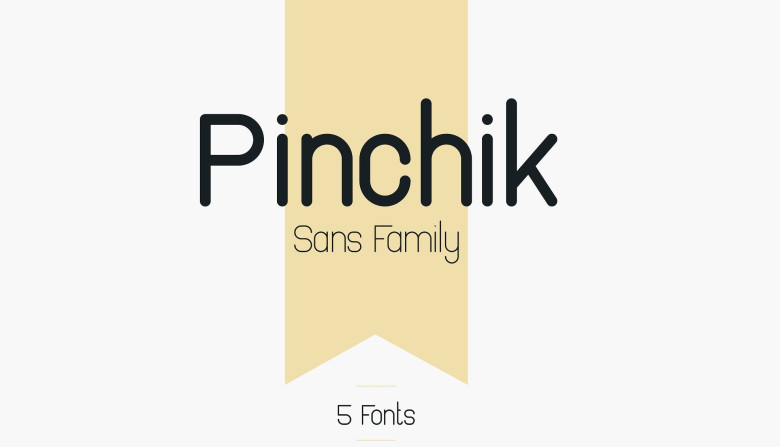
Pinchik Sans Font Family
Start a new day with a new font family. It is a sans family with 5 styles. Introducing Pinchik! It is designed and shared by Vladfedotovv. Pinchik is clean, rounded sans serif typeface with 5 fonts and multilingual support. It’s a very versatile font that works great in large and small sizes. Pinchik is perfect for branding projects, home-ware designs, product packaging, magazine headers – or simply as a stylish text overlay to any background image.